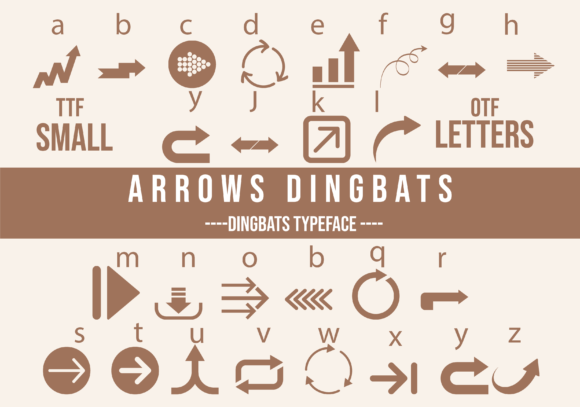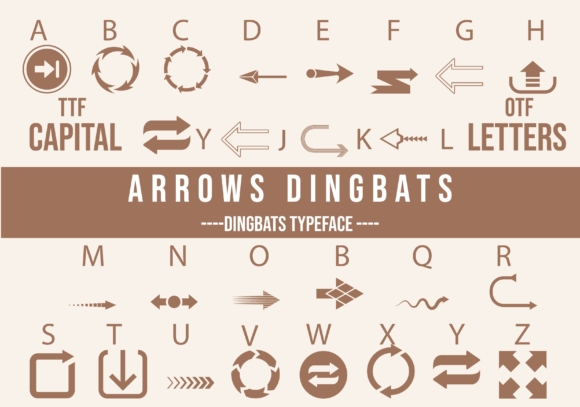
About Arrows Dingbats Font
“Arrows Dingbats” is a fun and useful dingbats font that will surely become a valuable asset in your font library. With this font, you have the power to effortlessly create 62 different arrows, allowing you to meet any design need that comes your way.
Arrows are versatile symbols that can add direction, movement, and emphasis to your designs. Whether you’re creating graphics for websites, posters, presentations, or any other visual project, having a wide range of arrow options at your disposal can greatly enhance your creative possibilities.
The “Arrows Dingbats” font provides you with a diverse set of arrow designs, from simple and straightforward arrows to more intricate and decorative ones. Each arrow symbol carries its own unique style, enabling you to select the perfect arrow to match your desired aesthetic or convey a specific message.
These arrows can be used in various ways to enhance your designs. You can utilize them to guide the viewer’s eye towards important elements or create visual pathways within your compositions. Arrows can also be used to denote direction, highlighting specific actions or indicating movement. They can be employed to add a sense of dynamism and energy to your designs, making them visually engaging and captivating.
The versatility of “Arrows Dingbats” extends to different design contexts. In digital design, you can incorporate these arrows into user interfaces, navigation menus, or call-to-action buttons to provide visual cues and improve user experience. On printed materials, such as brochures or signage, these arrows can help direct attention or communicate important information.
One of the great advantages of dingbats fonts like “Arrows Dingbats” is their ease of use. Instead of searching for pre-designed arrow icons or drawing arrows from scratch, you can simply type the corresponding letter or number associated with the desired arrow. This makes it convenient and efficient to integrate arrows into your designs, saving you time and effort.
Experiment with different arrow styles, sizes, and orientations to find the perfect fit for your project. Combine multiple arrows to create intriguing compositions or use them individually for subtle visual accents. With “Arrows Dingbats,” you have the freedom to explore and play with these arrow symbols to achieve your desired design outcome.
So, make sure to add “Arrows Dingbats” to your font library and unleash its creative potential. From providing guidance and direction to adding a touch of visual interest, these arrows will undoubtedly elevate your designs and make them more dynamic and engaging. Let the arrows do the talking and watch as they bring your designs to life!